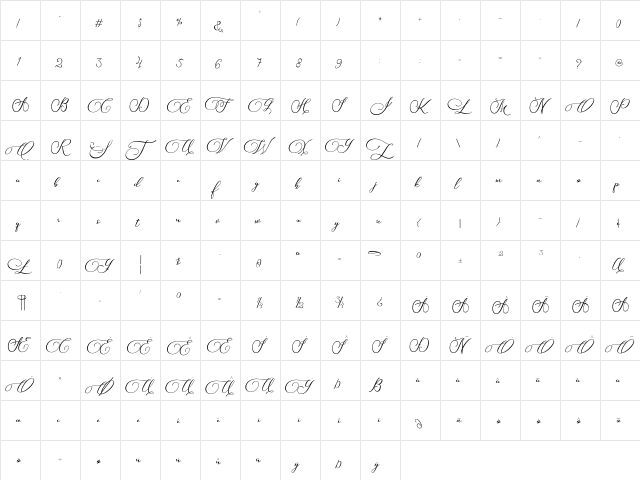
Biargabara Script Regular
Design Context for Biargabara Script Typeface
Biargabara Script flows with the natural rhythm of handwritten lettering, making it ideal for designs that call for warmth and personal expression.
Font Pairing: Combine Biargabara Script with a simple geometric sans for maximum contrast — the tension between flowing curves and clean structure is a classic typographic pairing.
Pro Tip: Use Biargabara Script for short runs of text — names, titles, or taglines. Extended body copy in script faces tires the eye quickly.